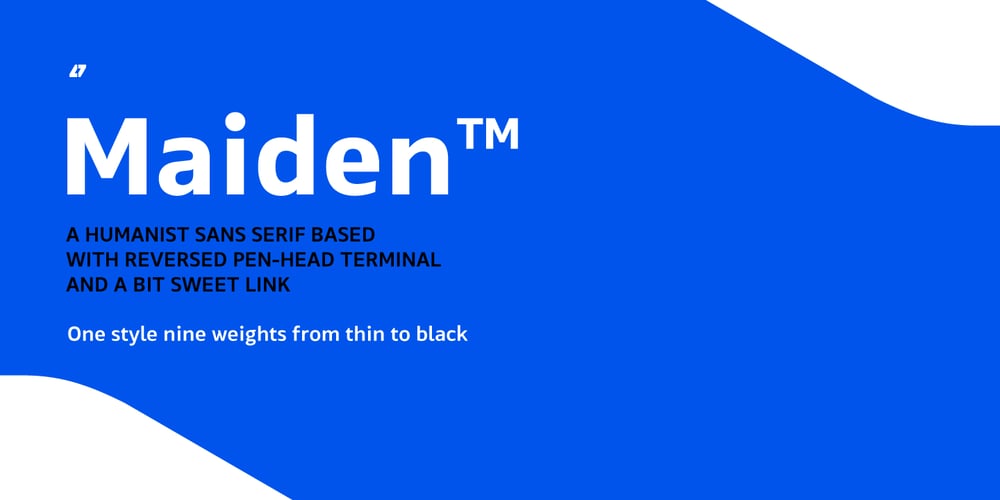
Maiden Sans Font Family was designed by Kwanchai Akkaratammagul and published by Deltatype. Maiden Sans contains 9 styles and family package options. Maiden Sans is a humanist sans-serif based typeface which contains nine weights, from thin to black. Designed to use as body text to headline. The design of Maiden Sans typeface can easily be recognized at the terminal with reverse pen-head style and a bit sweet link!